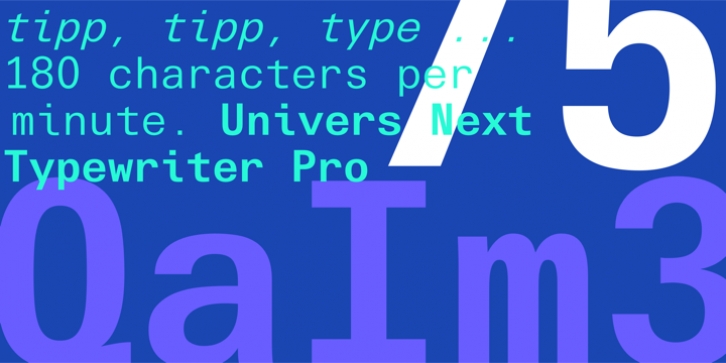
Univers Next downloadDesigner: Adrian Frutiger,
Publisher: Linotype
Univers Next is a completely reworked version of the original Univers typeface family by Adrian Frutiger. Based on a student project he drew in the late 1940s, Frutiger completed the Univers family in 1957 for Deberny and Peignot, where he was a staff designer. As the first large type family to be conceived in a wide range of widths and weights right from its inception, with a unique systemized numbering system, Univers was truly a trailblazer.
In 1997 Adrian Frutiger and the design staff at Linotype completed the large joint project that resulted in Linotype Univers, a cohesive font family of 63 weights. The existing weights were completely redrawn, making the proportions more consistent and improving fine details such as curves and thick-to-thin stroke ratios. By following Frutiger’s original designs, Univers’s humanist characteristics were underlined.
Linotype Univers was further extended in 2010, and renamed Univers Next to harmonize with the naming of the other type families in Linotype’s prestigious Platinum Collection.